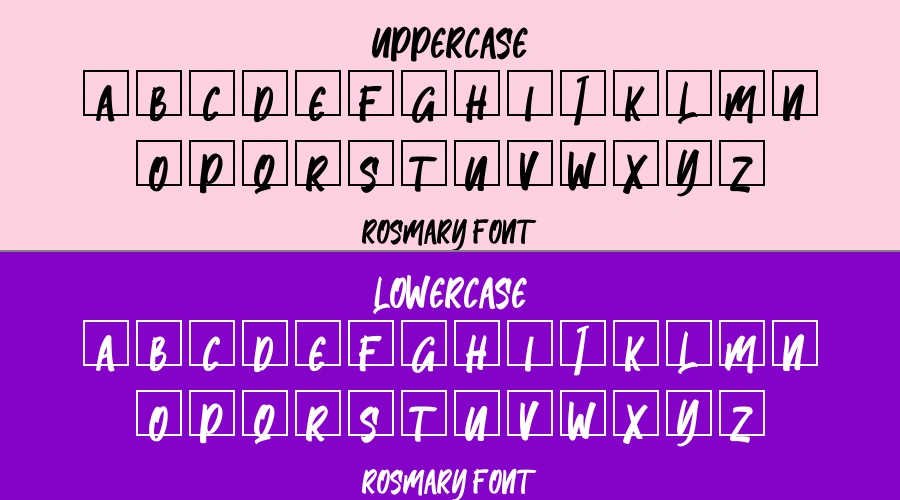
About Rosmary Font
When typographic excellence matters most, Rosmary Font delivers through its thoughtful blend of subtle details and versatility. Specially crafted for marketing materials, it offers the reliability and classic beauty required for sophisticated design work. Every detail serves a purpose.
The character set showcases thoughtful details like convex bowls alongside functional superior letters. This proves especially valuable in brand manuals, where readability directly influences results. Particular attention was paid to proportion and historical context during development.